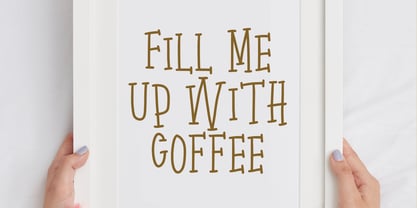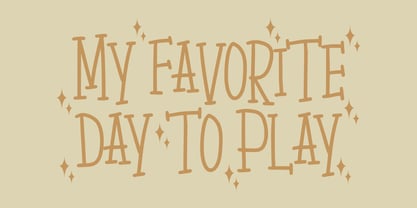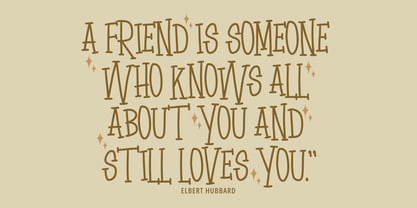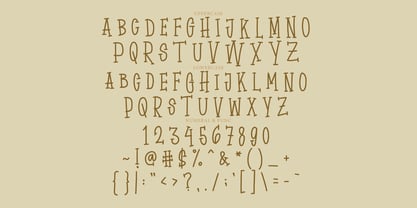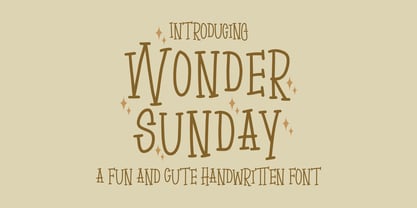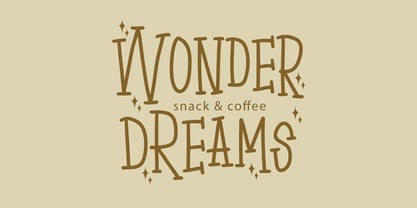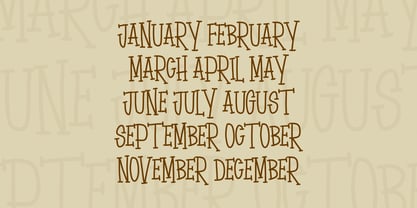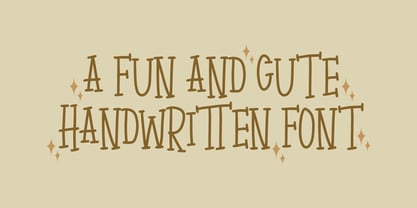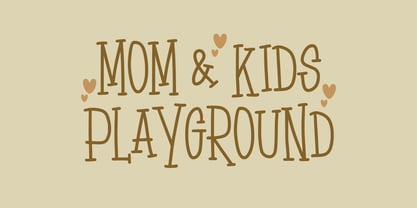
Wonder Sunday Display
by Tebaltipis Studio
The Wonder Sunday Display Font Family was designed by Dzulka Elfira and published by Tebaltipis Studio. Wonder Sunday Display contains 1 styles. More about this family
Wonder Sunday font a display typeface awesome character regular. Wonder Sunday font it’s perfect for namecard, poster, logo, magazine, cover, banner, tshirt and headers, or even large-scale artwork.
Designers: Dzulka Elfira
Foundry: Tebaltipis Studio